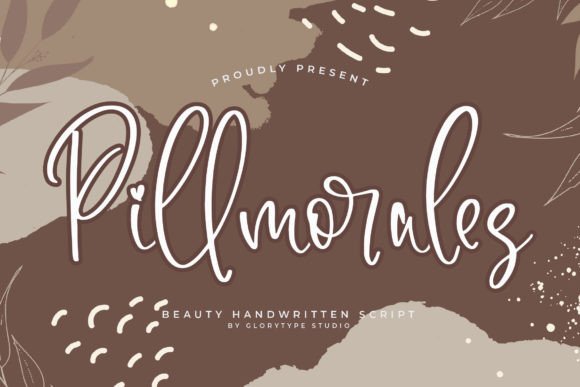
Welcome to Pillmorales Font Collection, where you can find the best fonts for menu design. If you are looking for a modern and delicate font family to add to your design ideas, look no further than Pillmorales.
Created by Glorytype Studio, this script font has a flowing handwritten style that will bring a charming and sophisticated touch to your projects. Pillmorales Font is perfect for a wide range of design applications, including mugs, t-shirt designs, eye-catching logo designs, greeting cards, and many more.
With its elegant curves and swashes, Pillmorales is a versatile font that can be used for both personal and commercial projects. This font family is designed to inspire creativity and elevate your designs with its unique and captivating appearance.